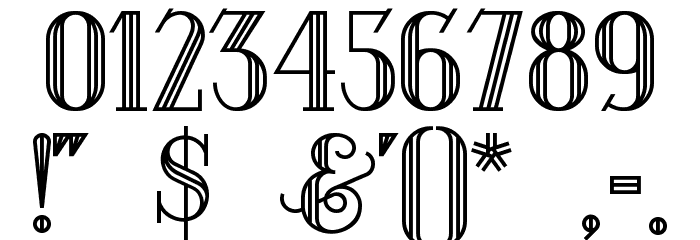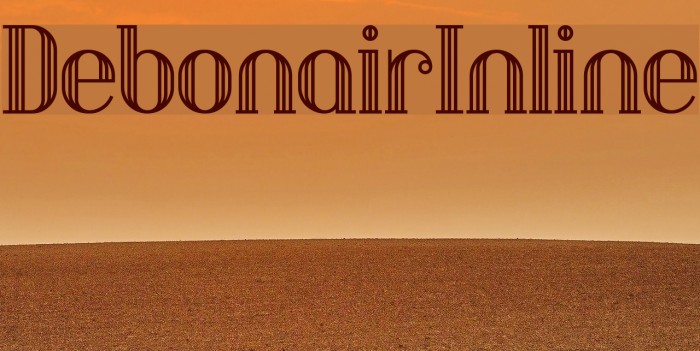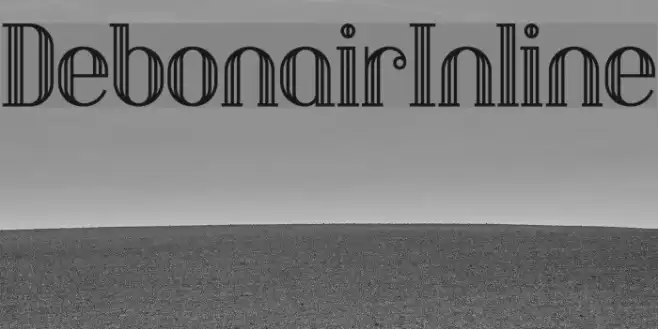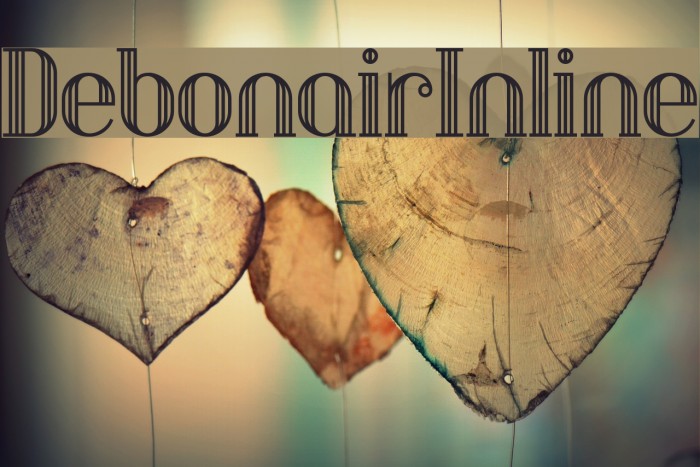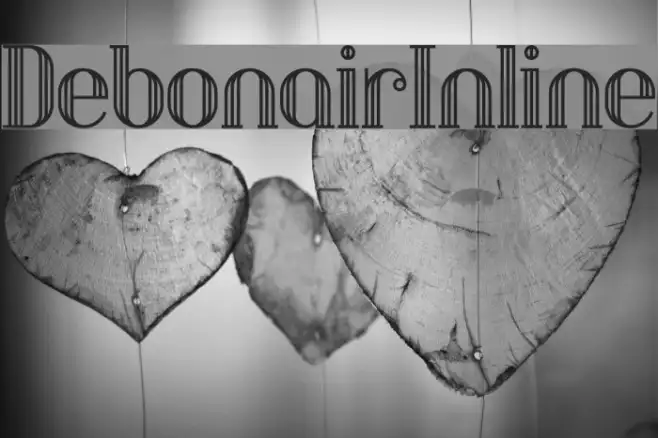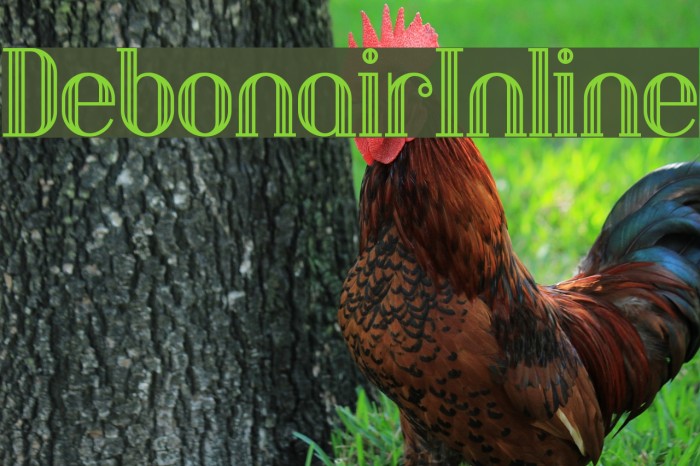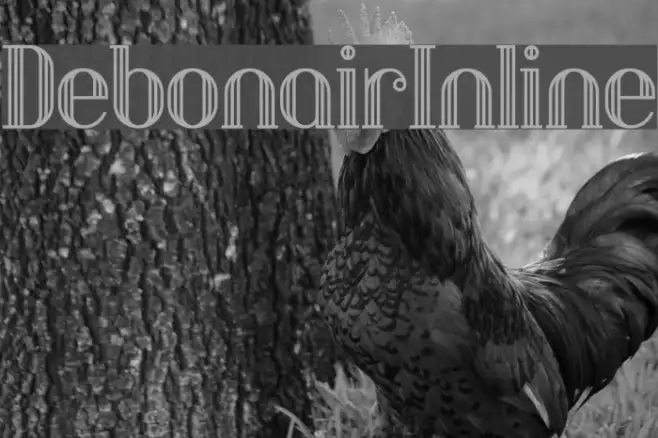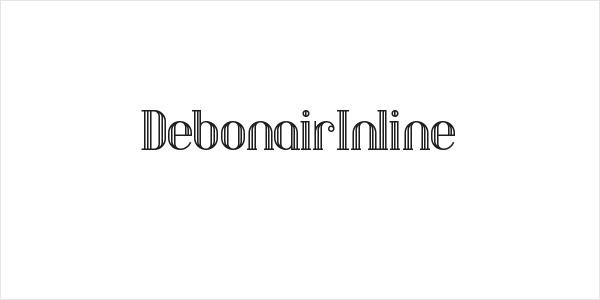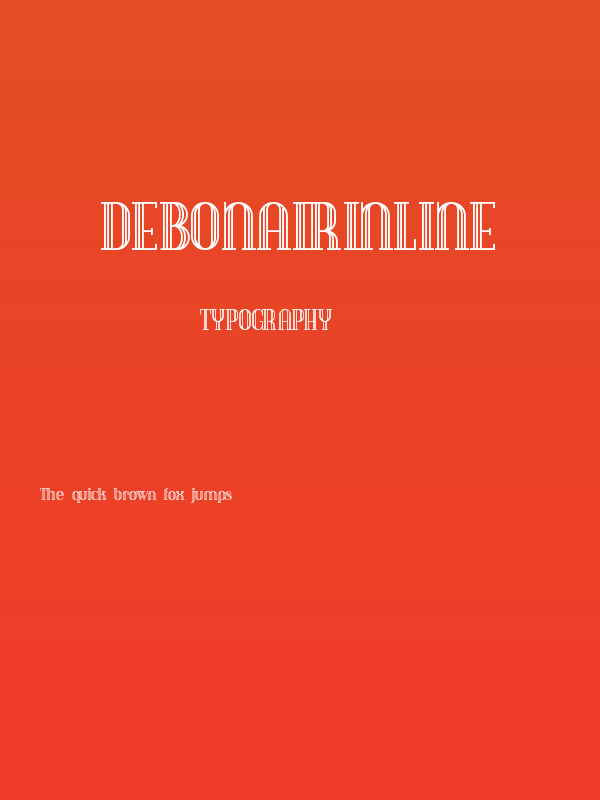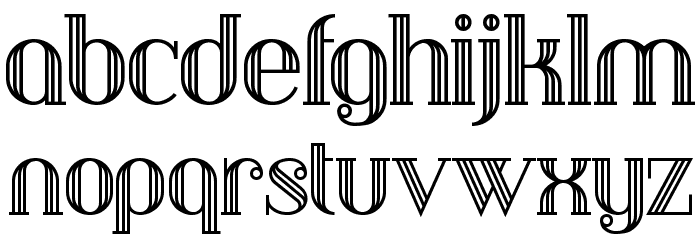
DebonairInline Font
DebonairInline Description
This font features a unique inline design that combines elegance with a modern twist. The uppercase and lowercase letters are crafted with precision, showcasing a series of parallel lines that create an illusion of depth and sophistication. The numerals and special characters maintain this distinct style, ensuring consistency across all glyphs. The font's structure is both decorative and functional, making it suitable for a variety of design applications. Its intricate detailing and bold presence make it ideal for projects that require a touch of luxury and refinement.
| Proposed Projects | Ideal for luxury branding, high-end packaging, event invitations, and editorial headlines. |